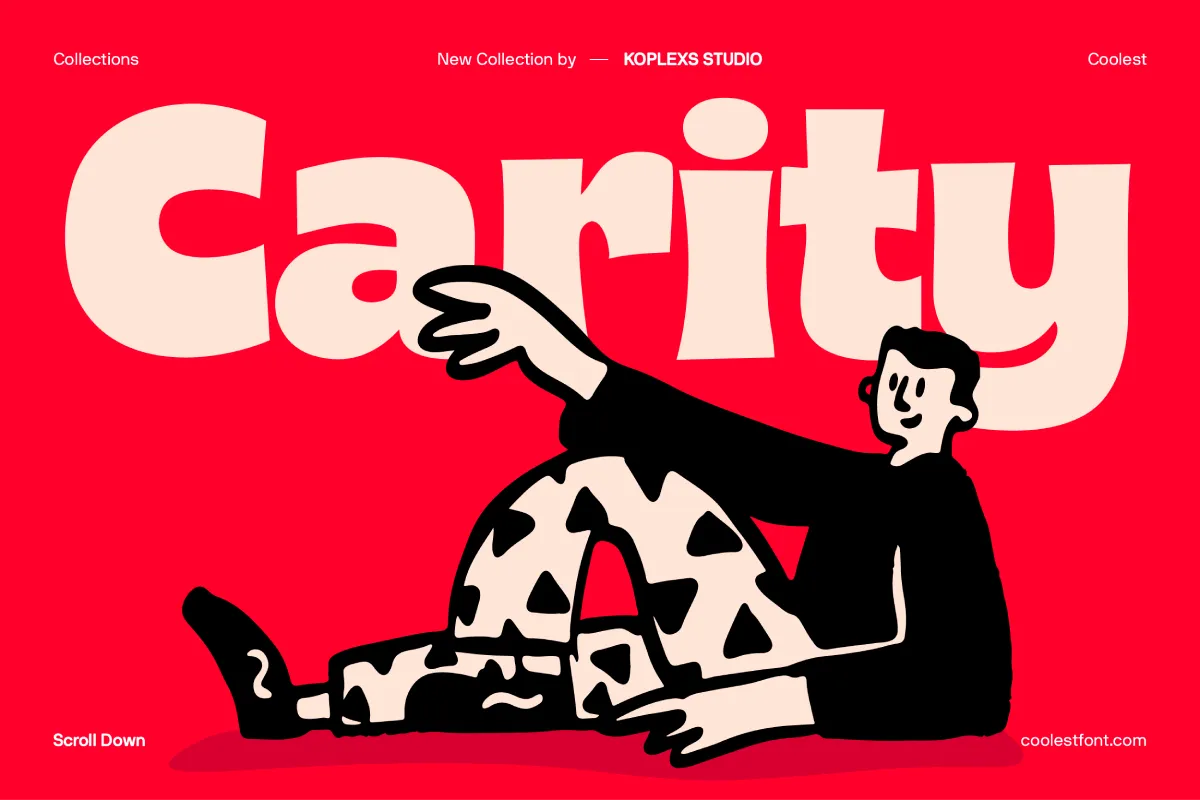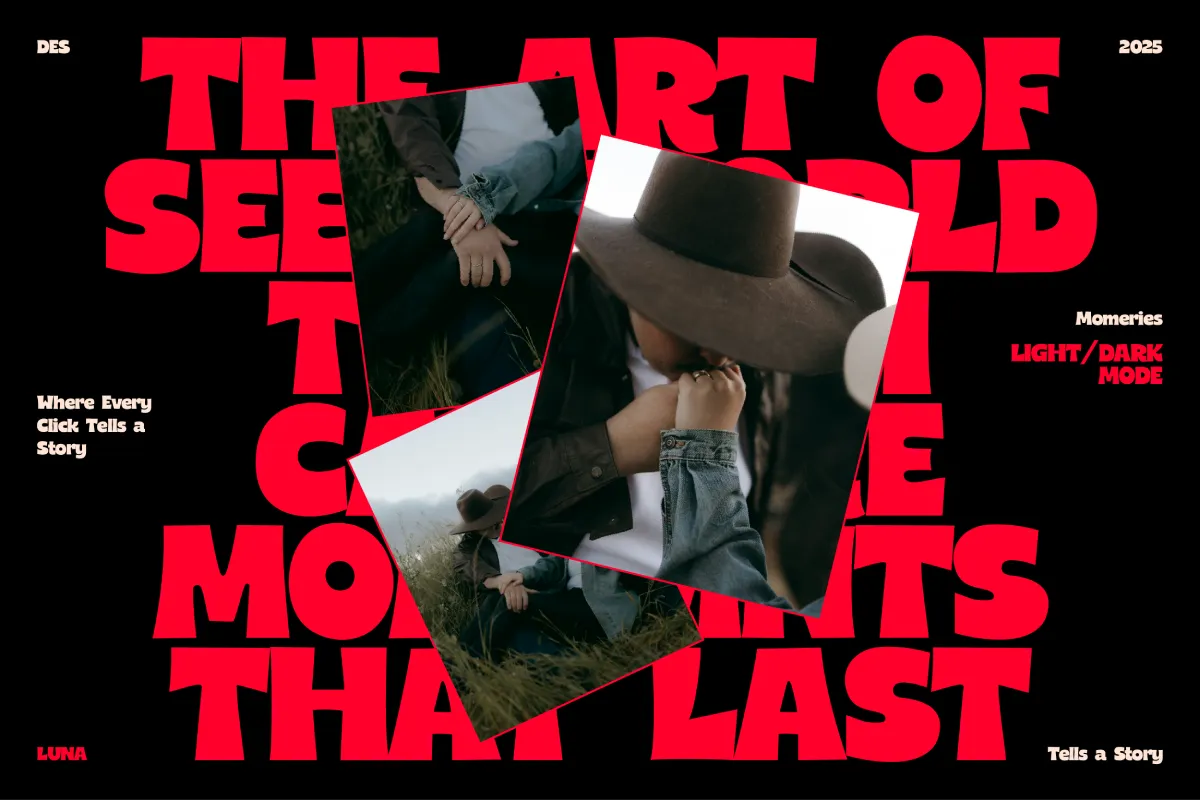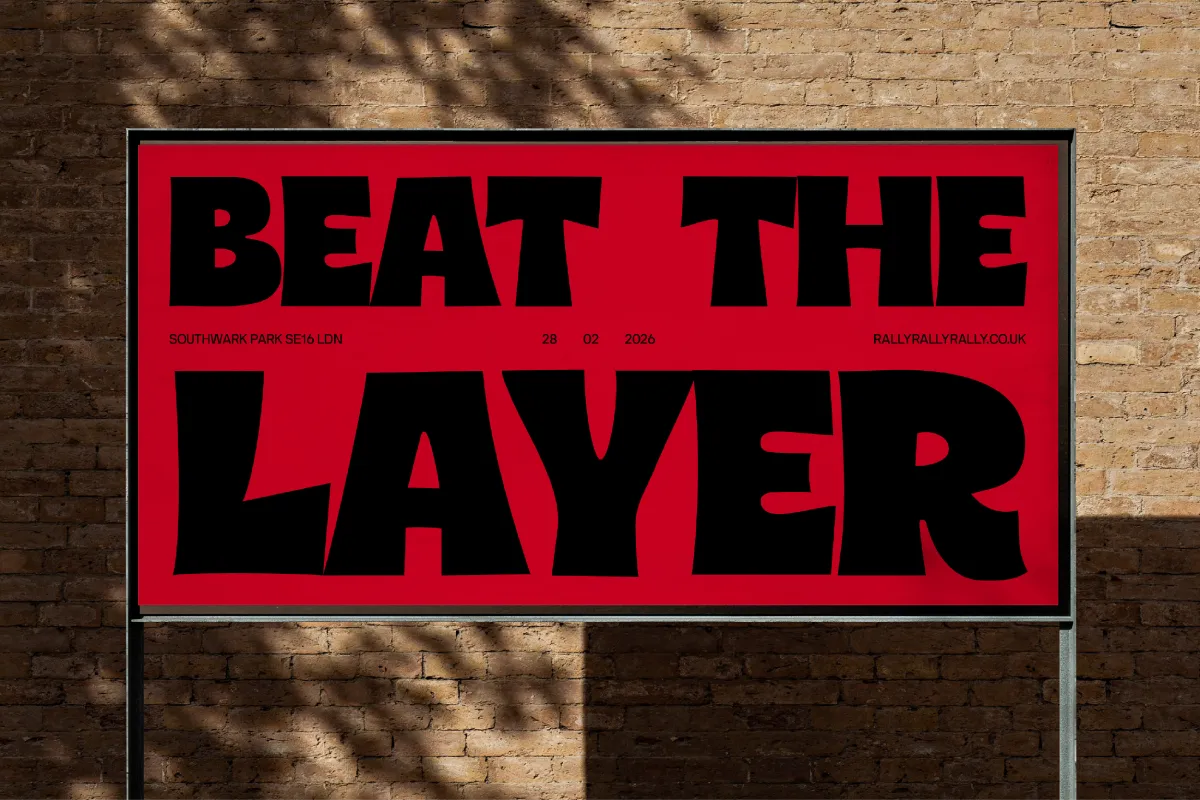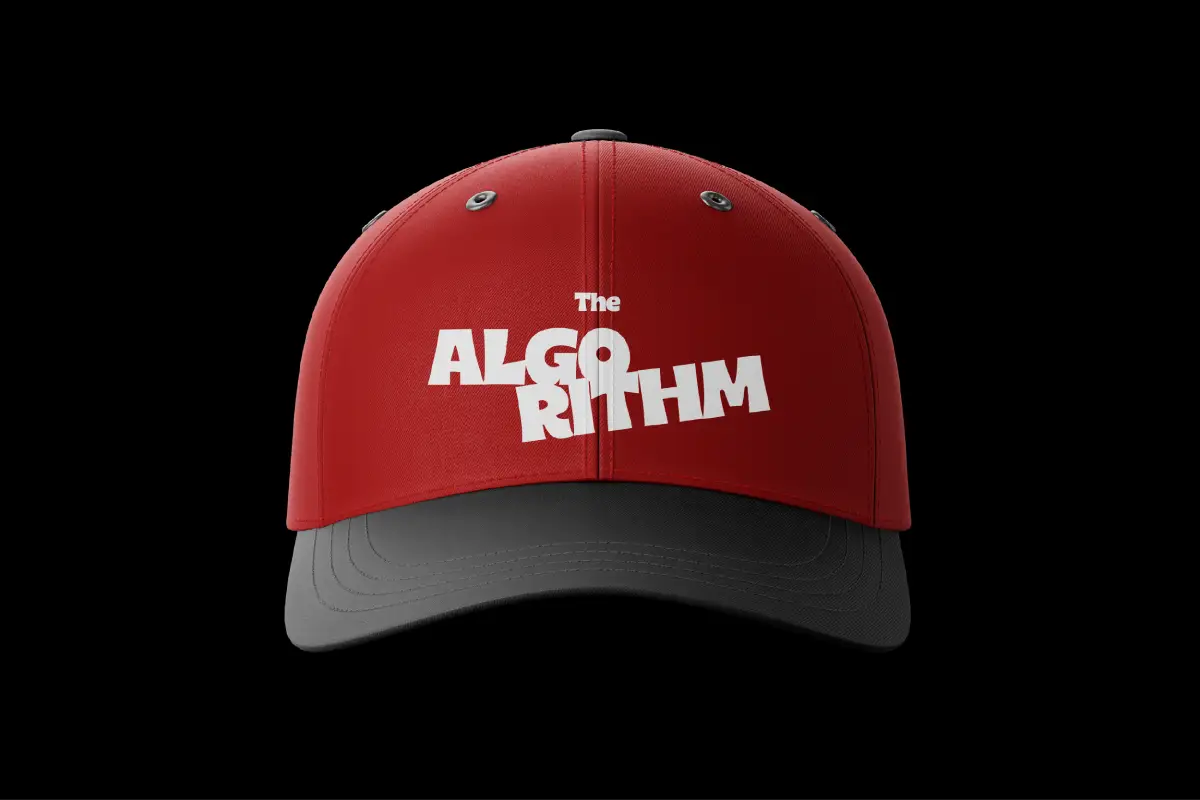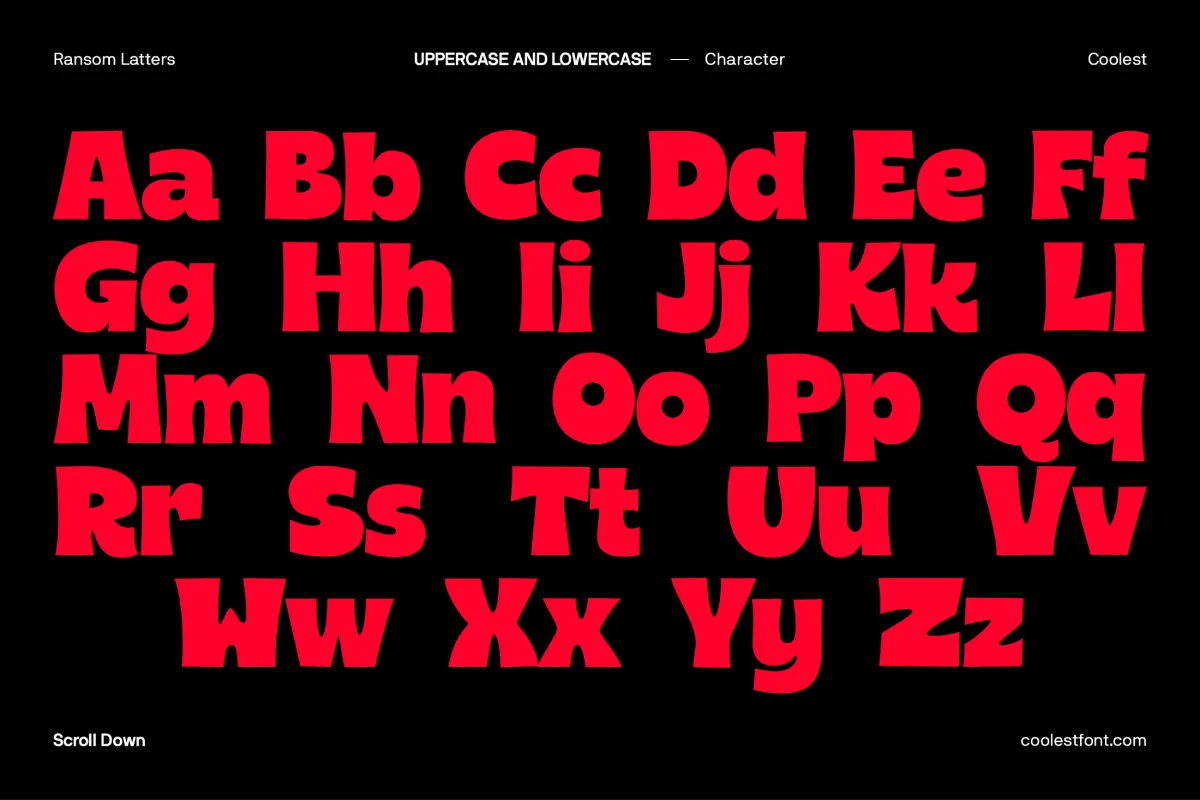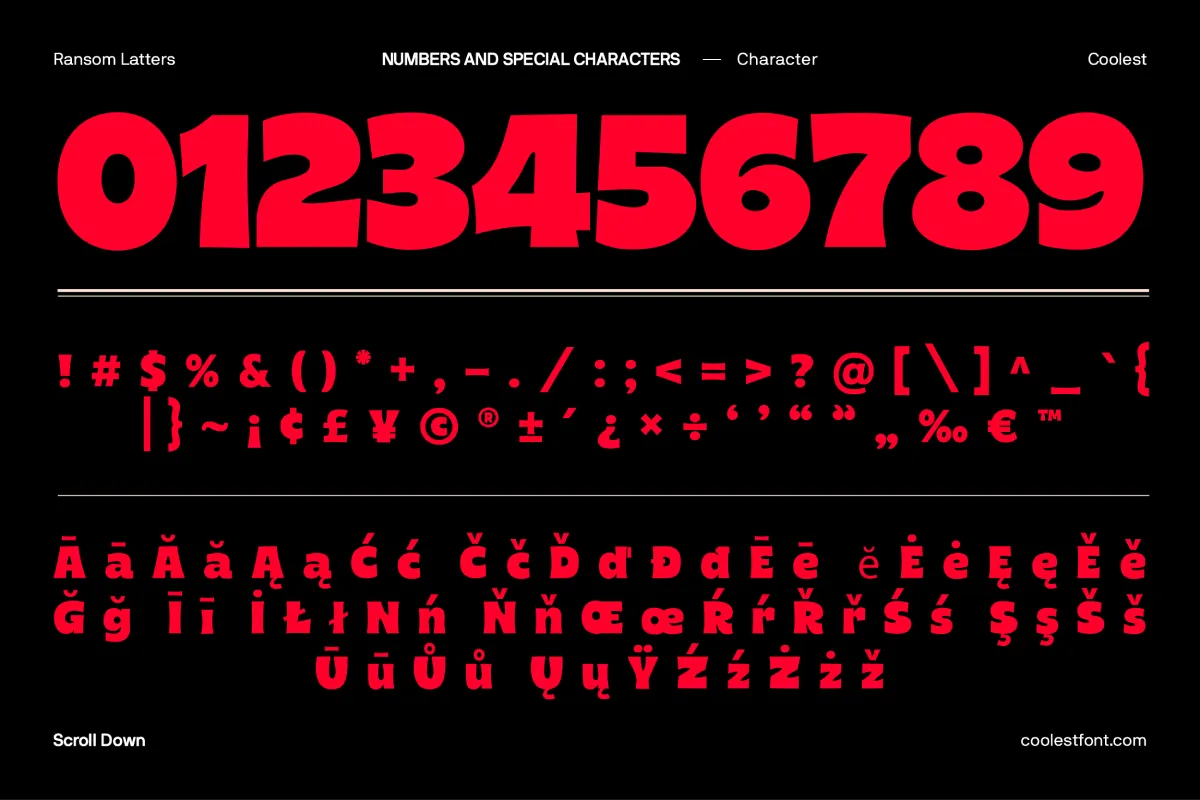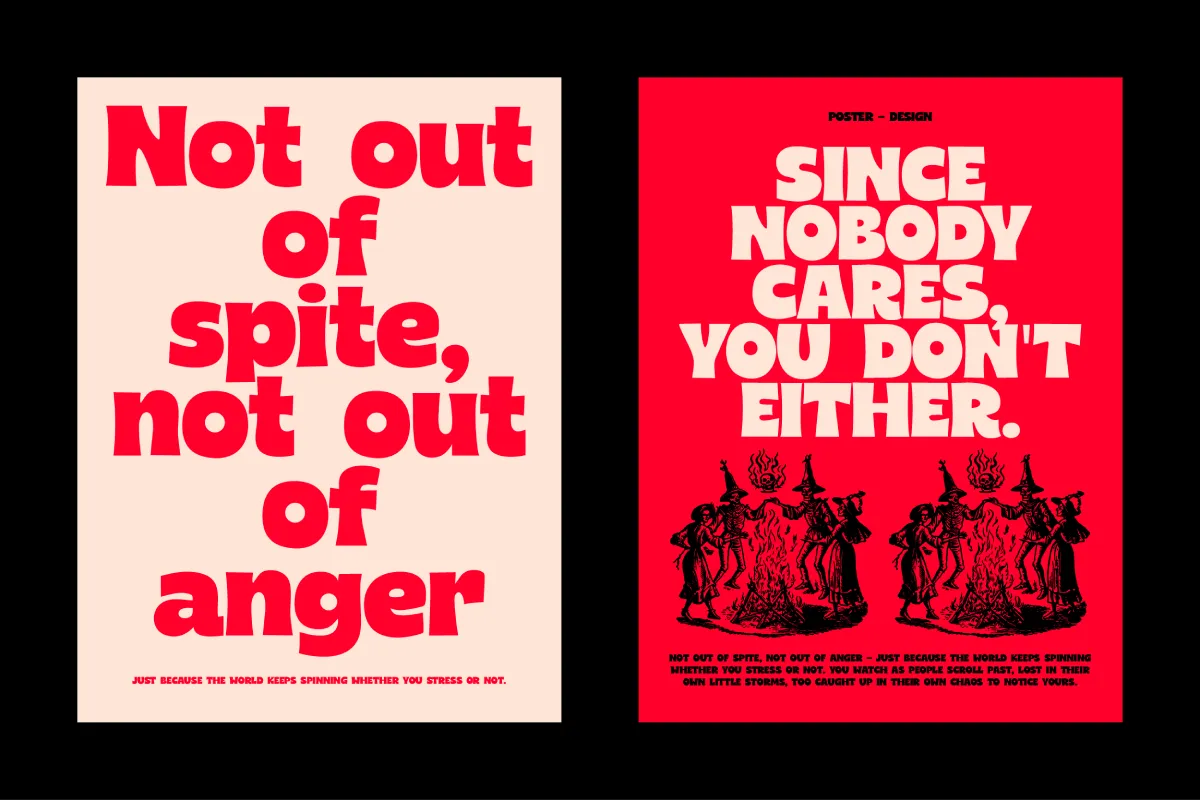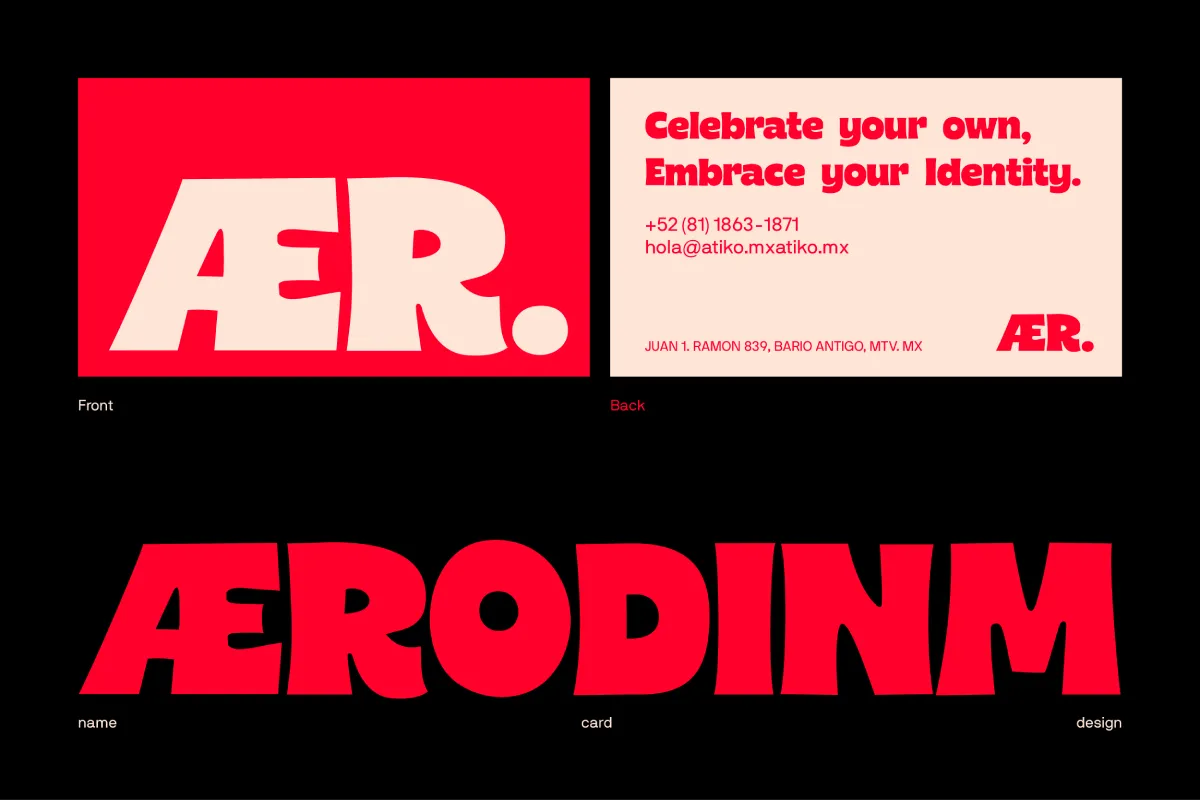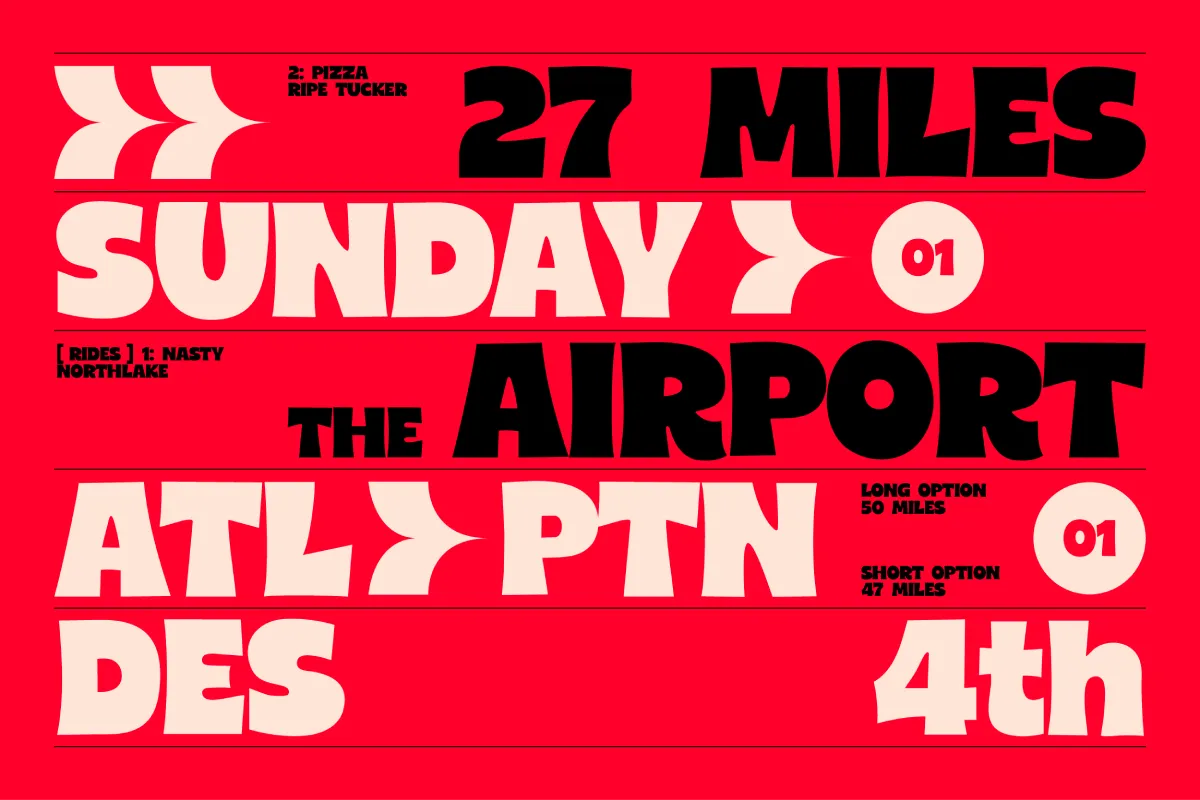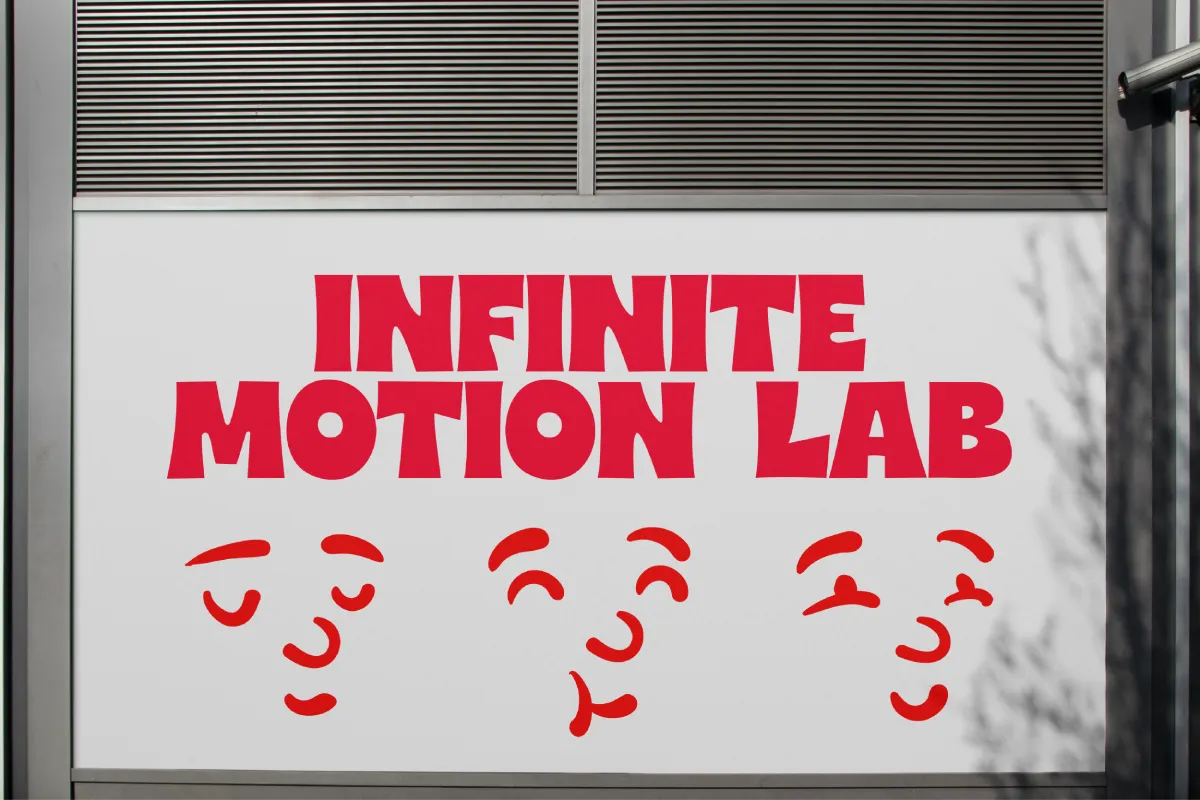
Carity Font – Bold Display Font for Modern Branding
Carity Font is a bold font and modern display font with chunky, expressive shapes that deliver strong visual impact. Perfect as a branding font and headline font, it elevates posters, covers, logos, and creative layouts. With its cool and energetic style, Carity Font brings personality to any project.
Carity Font – Modern Bold Display Typeface for Branding, Posters, Logos & Chunky Creative Headlines
Carity Font is a bold font and modern display font designed to deliver maximum visual punch with its chunky fonts aesthetic and playful, expressive forms. Crafted for designers who want a cool font with strong personality, Carity Font stands out effortlessly in any layout. Its thick shapes and dynamic rhythm make it a powerful branding font, headline font, and poster font that instantly grabs attention.
Created to support modern visual identities, Carity Font is versatile enough for both digital and print applications. Whether used as a logo font, cover font, or for bold editorial layouts, this typeface brings a confident and contemporary edge.
Carity Font Features :
• Standard & Multilingual glyphs
• Alternates
• Fonts include multilingual support
Carity Font Best Suited For :
• Branding & Visual Identity
• Posters & Event Designs
• Magazine Covers & Editorial Titles
• Creative Logos & Logotypes
• Product Packaging
• Social Media Graphics
• Website Hero Text
• Merch, Apparel & Tag Designs
Carity Font Recommended Use Cases
• Bold, chunky, and expressive letterforms
• Modern and playful display design
• Excellent readability in large sizes
• Strong visual weight perfect for impactful headlines
• Unique shapes ideal for creative branding
Why You’ll Love Carity Font
• Adds personality and artistic flair
• Ideal for high-impact display typography
• Works beautifully with modern, playful, or bold design themes
• Helps your project stand out instantly